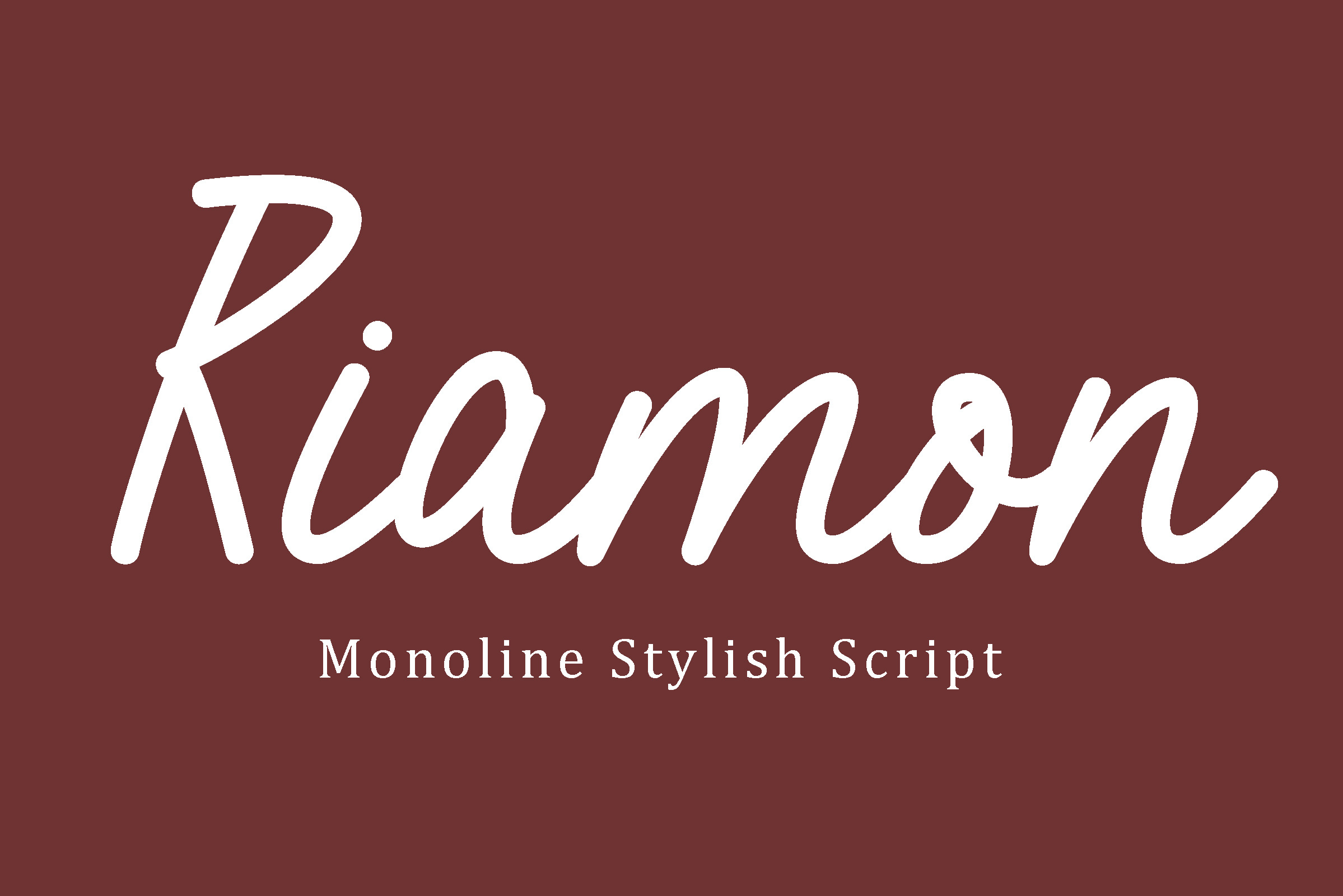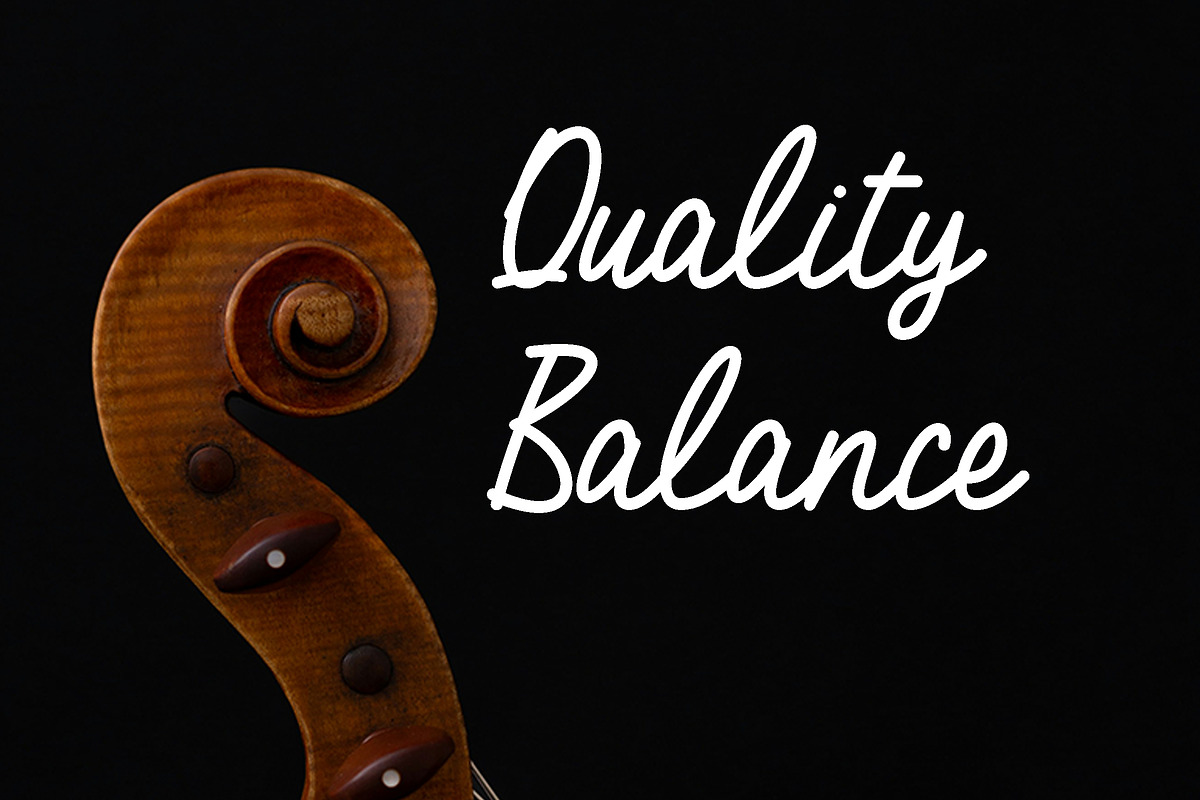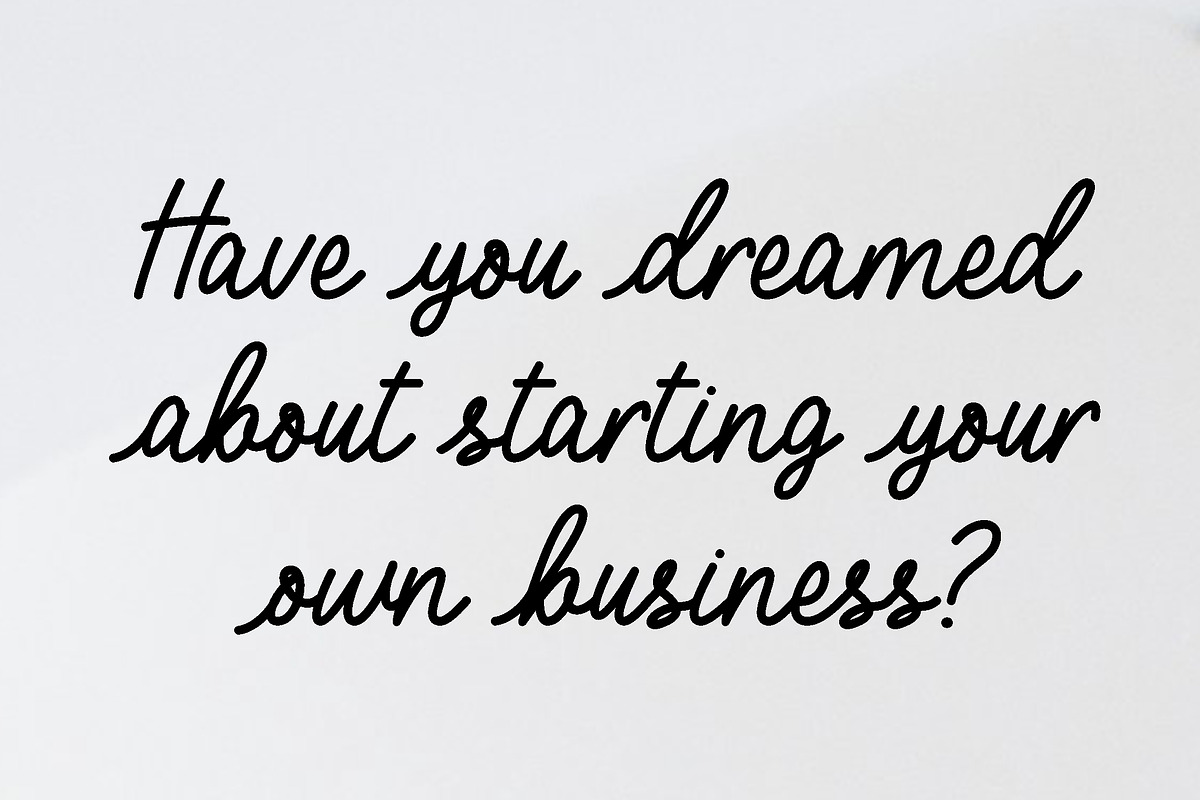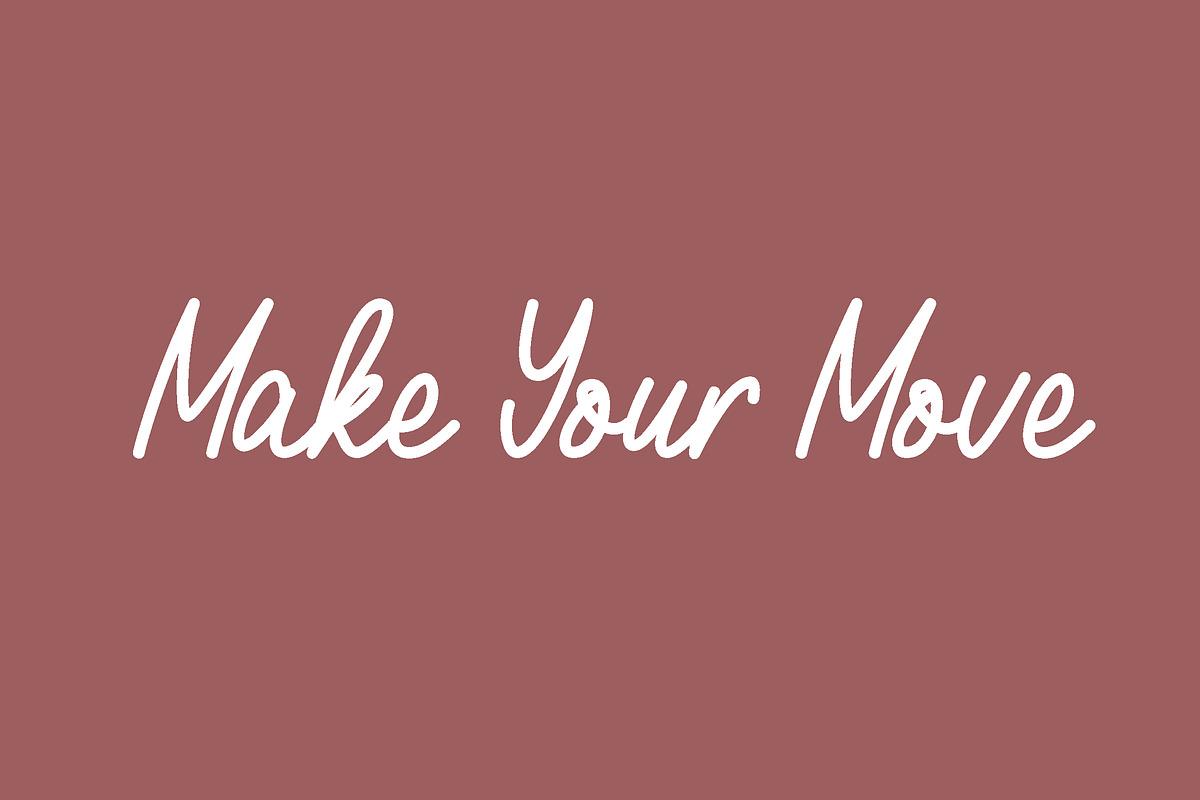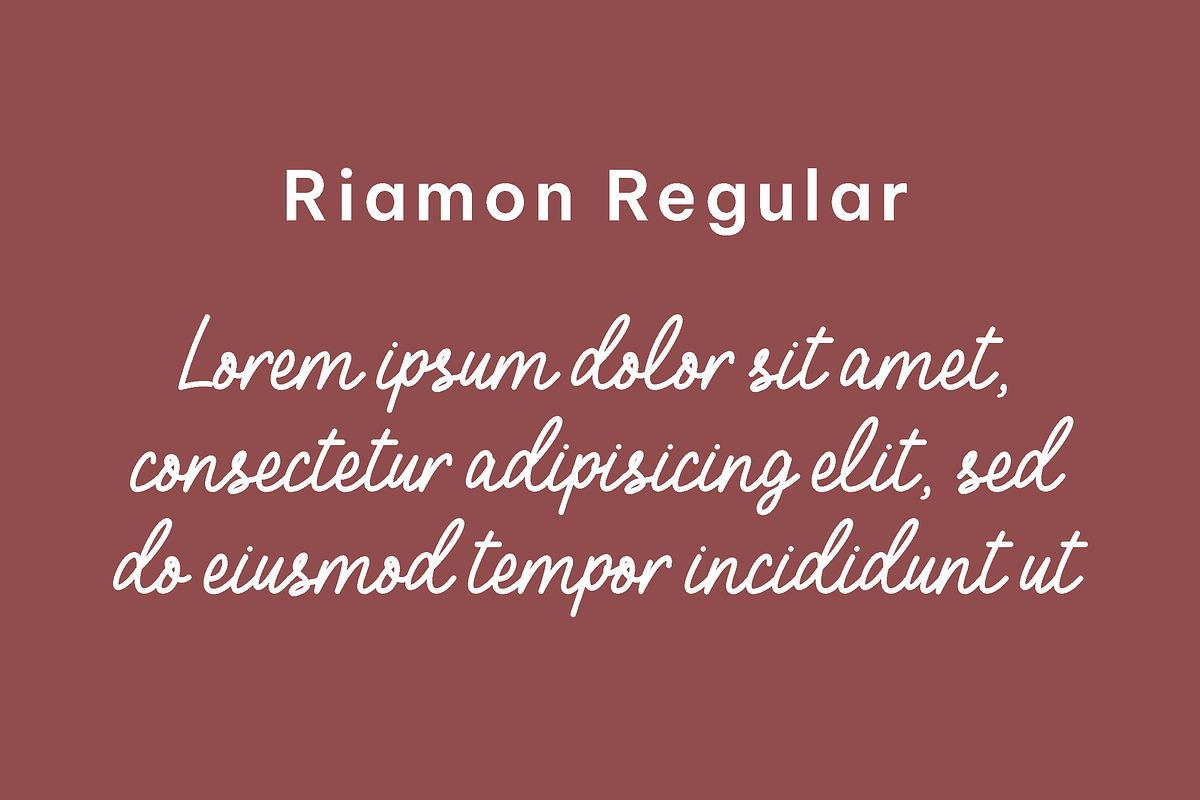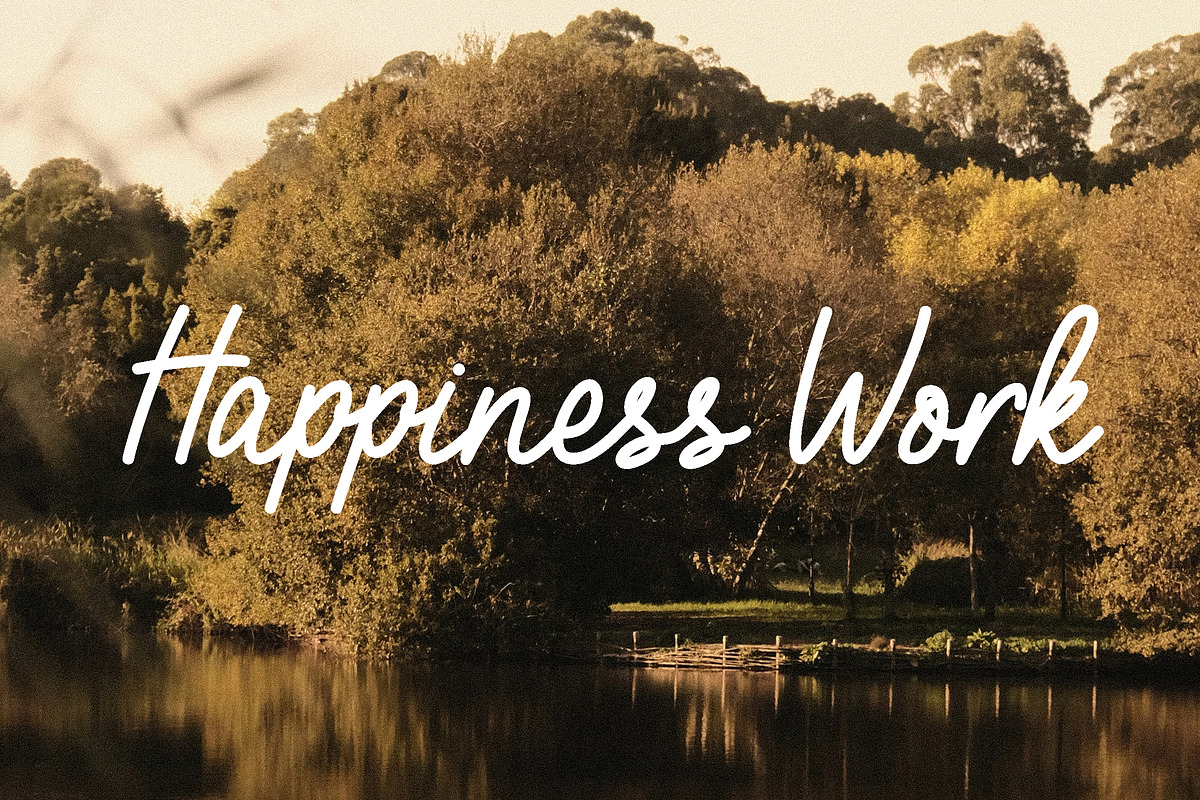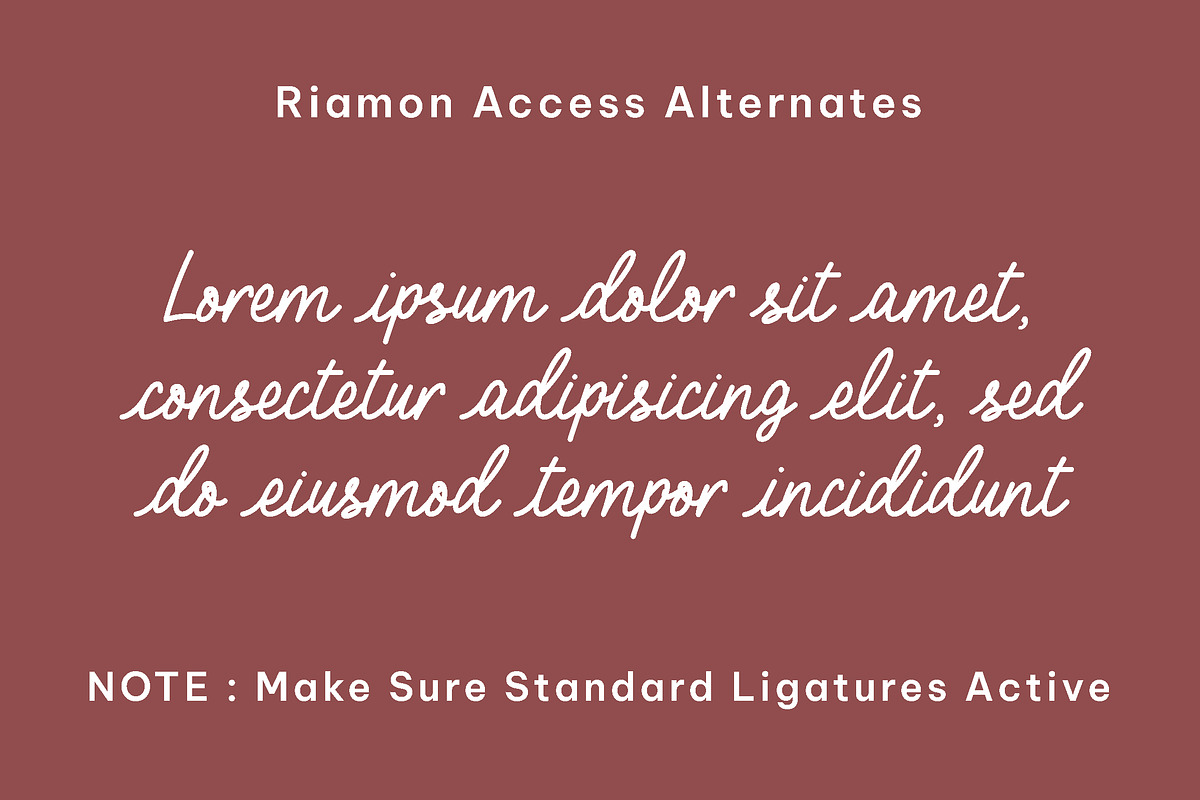
Riamon - lines stylish script font
Introducing Riamon, a classy minimalistic script font full of character and a few twists. It has the clean minimalism of a monoline font and the originality of handwriting. This font is PUA encoded which means you can access all of the glyphs and alternates with ease. please type the preview to see if I have what you need!